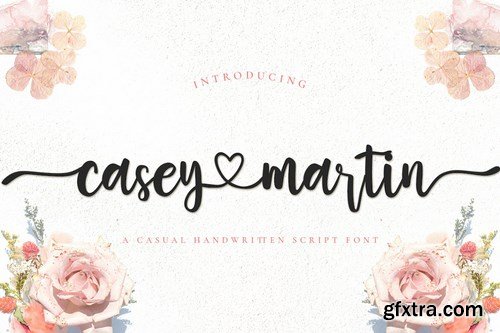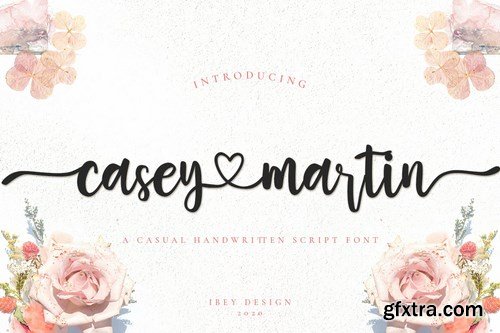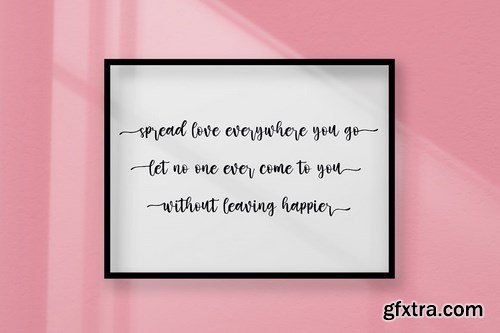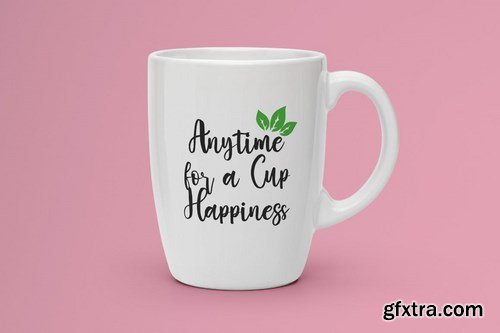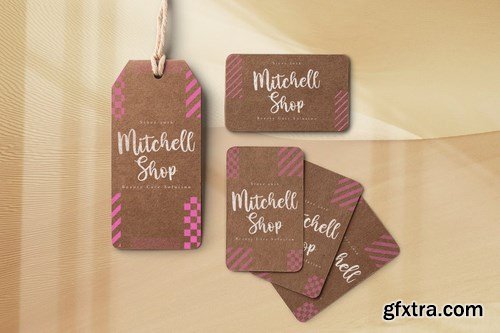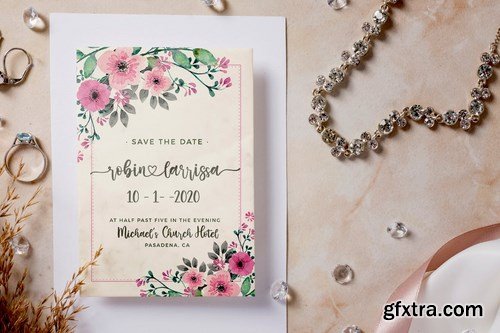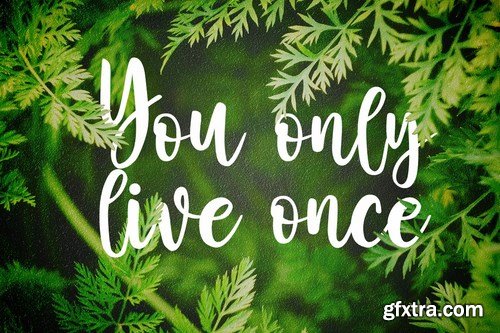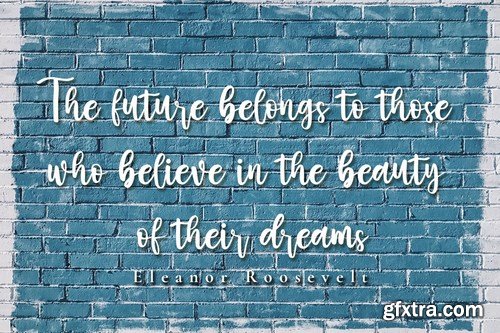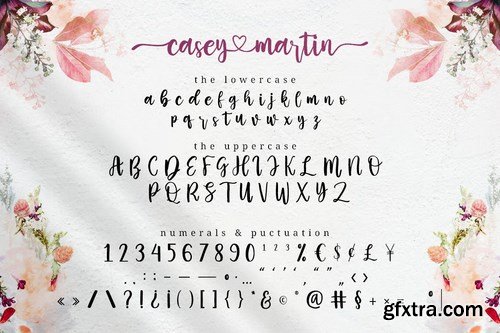
Casey Martin script is perfect font pairing with tails alternates character. Casey Martin script is a modern hand lettering script. It's allowing you to create beautiful hand-made typography in an instant.